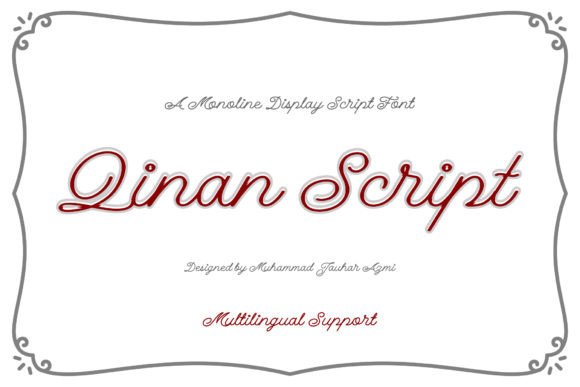
Behold the enchanting allure of Qinan Script, a captivating script font family born from the creative forge of Brothers Graphic. With its mesmerizing monoline display style, Qinan Script weaves a tapestry of timeless elegance and contemporary chic. Qinan Script unravels the artistry of hand-drawn lettering, capturing the essence of vintage charm with a fresh, modern twist.
Immerse yourself in a world of visual aesthetics as Qinan Script dances across your screen, leaving a trail of elegance in its wake. Its deliberate strokes and meticulously crafted curves evoke a sense of nostalgia, harkening back to the era of handwritten letters and heartfelt sentiments. Yet, Qinan Script is far from being a relic of the past; it embraces the present with open arms, seamlessly blending the allure of yesteryear with the vibrancy of today's design trends.
Qinan Script's versatility knows no bounds. It's the perfect adornment for logos and branding, lending a touch of sophistication and timeless appeal. Unleash your creativity in the realm of invitations and wedding stationery, where Qinan Script's delicate flourishes and swashes add a touch of romance and whimsy. Let your imagination run wild as you craft eye-catching posters and flyers, transforming ordinary words into visual masterpieces.
Qinan Script's opentype features are a treasure trove of creative possibilities. Swash and stylistic alternatives await your exploration, allowing you to customize your designs with endless variations. Experiment with different combinations, discover hidden gems, and unveil the full potential of this extraordinary font.
Qinan Script is more than just a font; it's an invitation to embark on a creative journey, to explore the depths of your imagination and manifest your artistic vision. Whether you're a seasoned designer or just starting your creative adventure, Qinan Script will be your steadfast companion, guiding you towards design excellence.